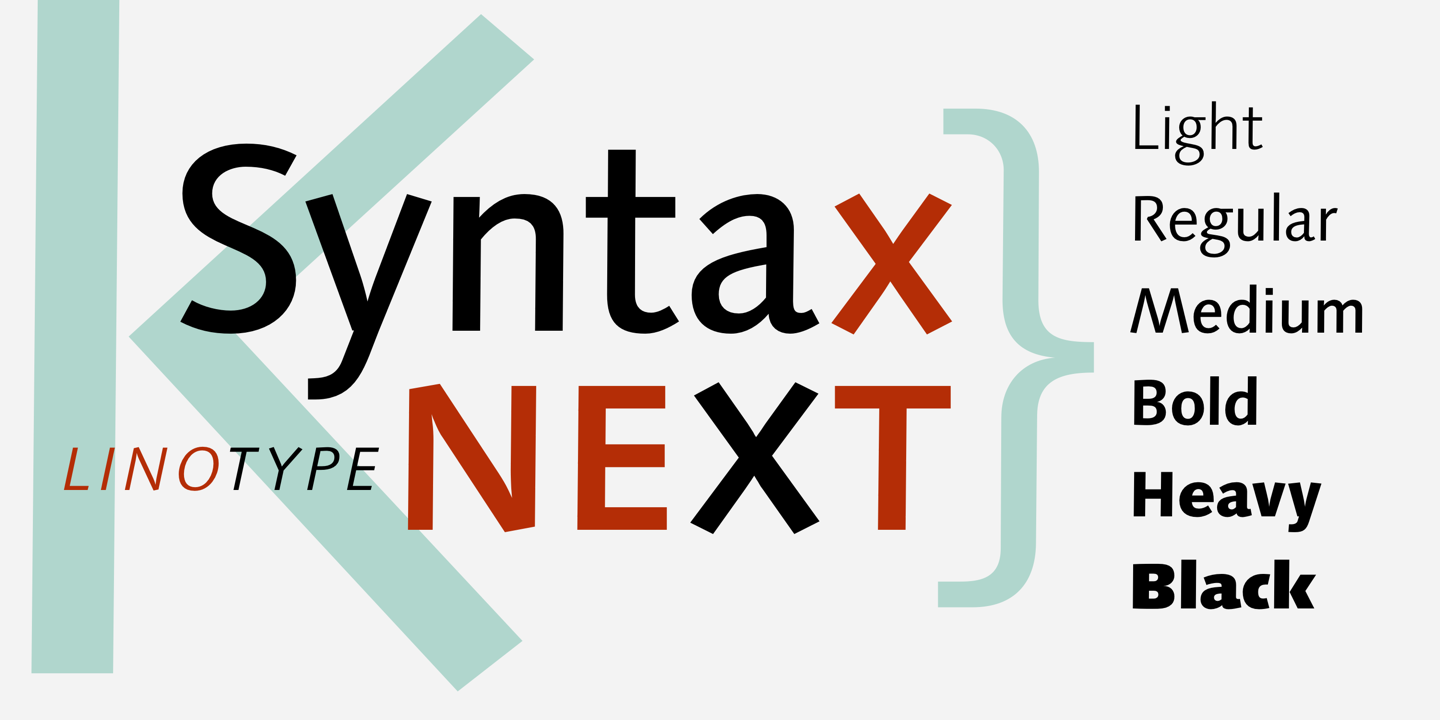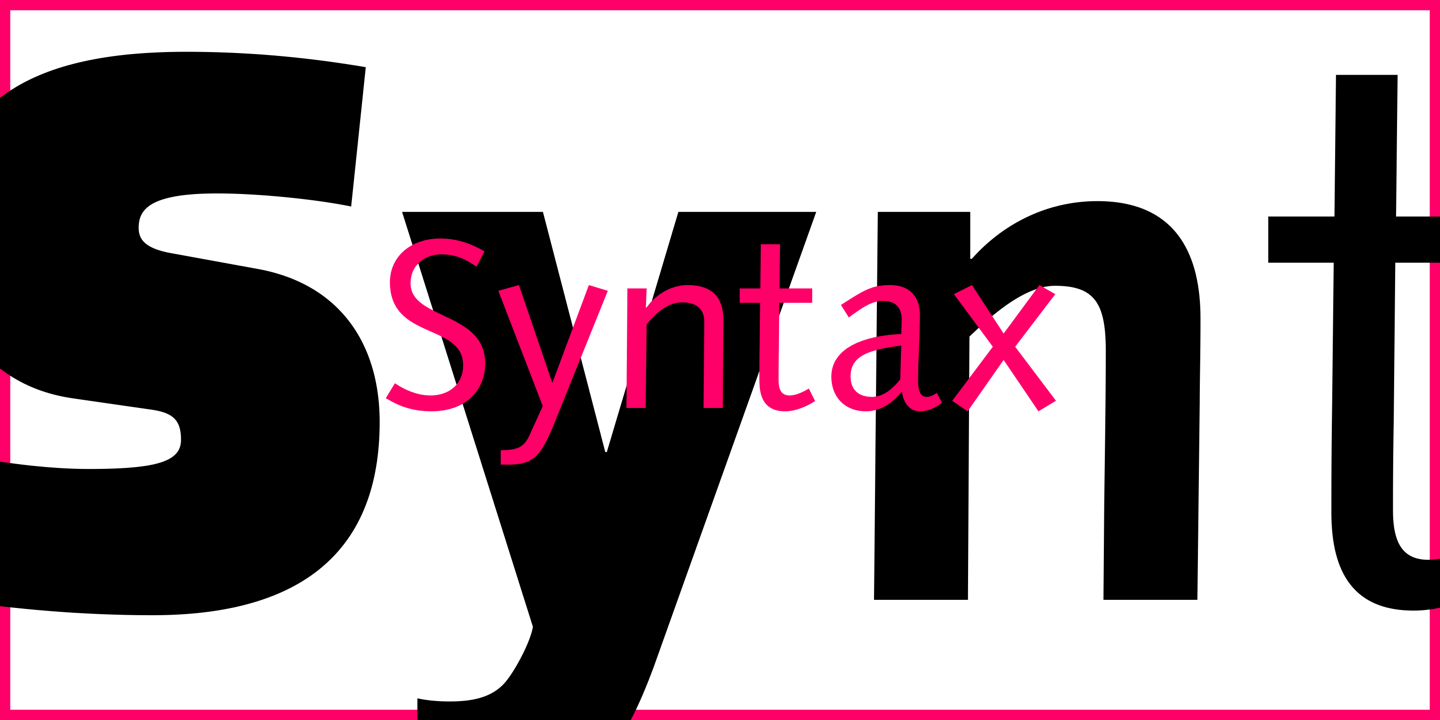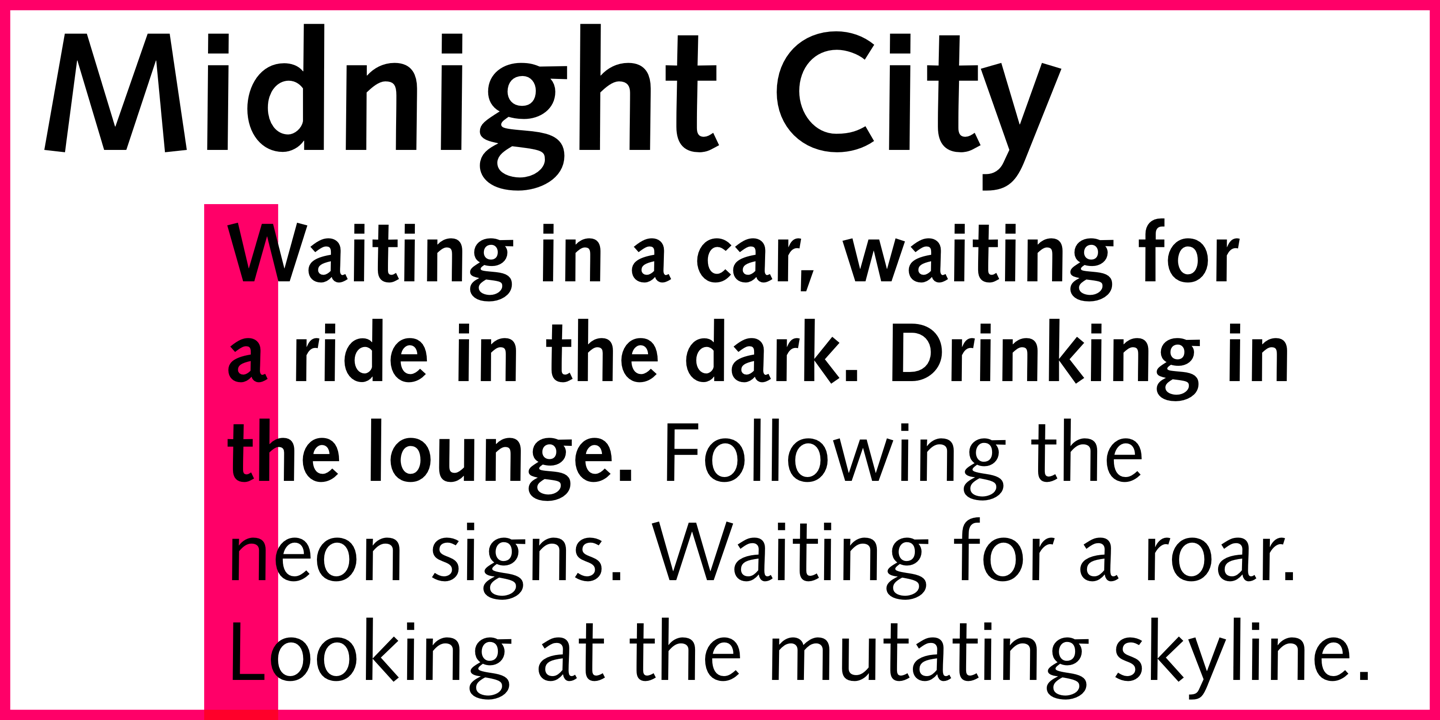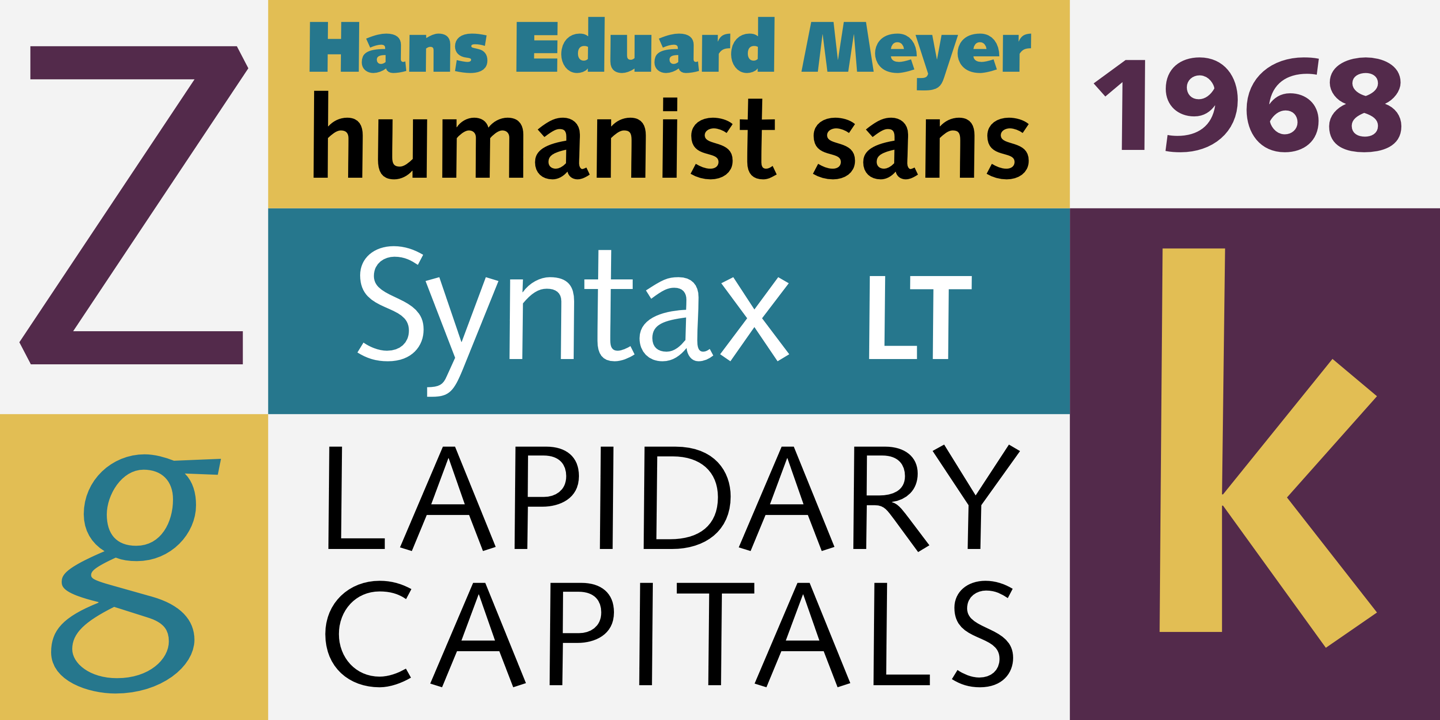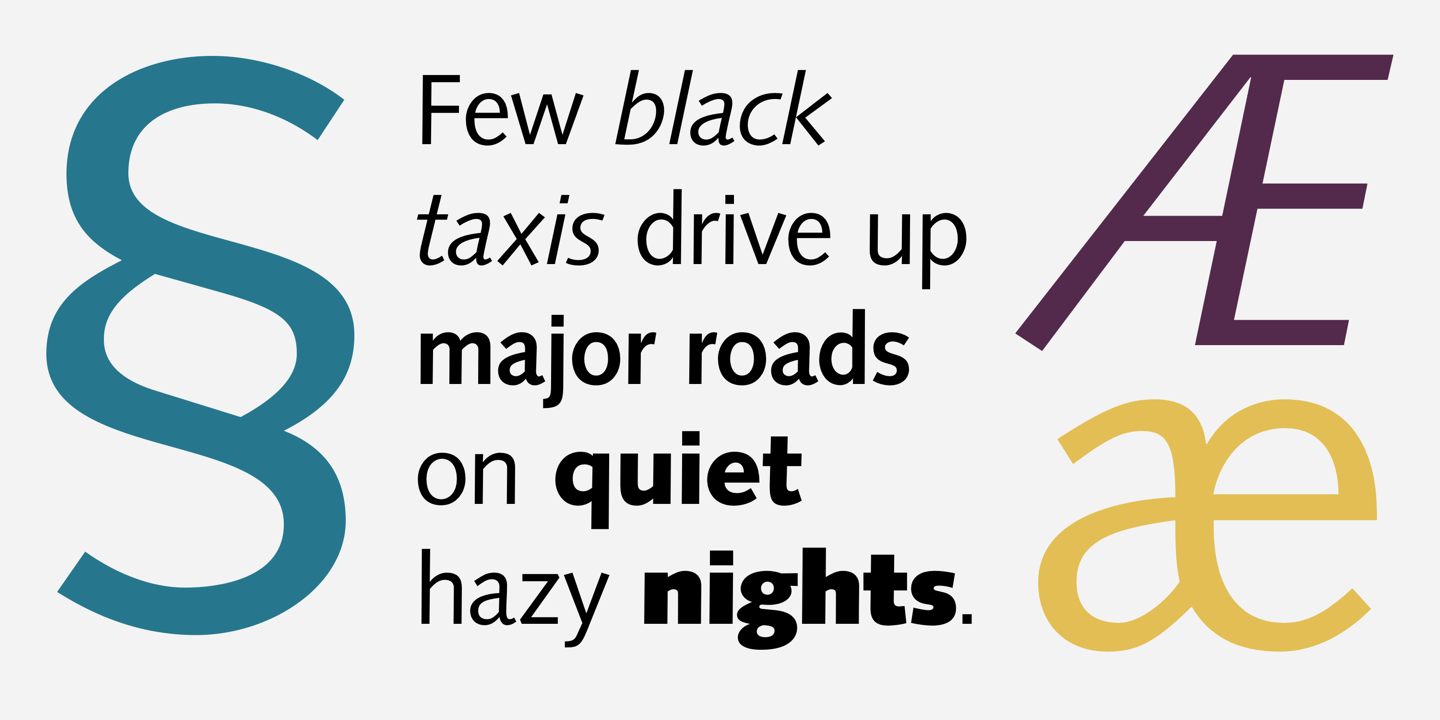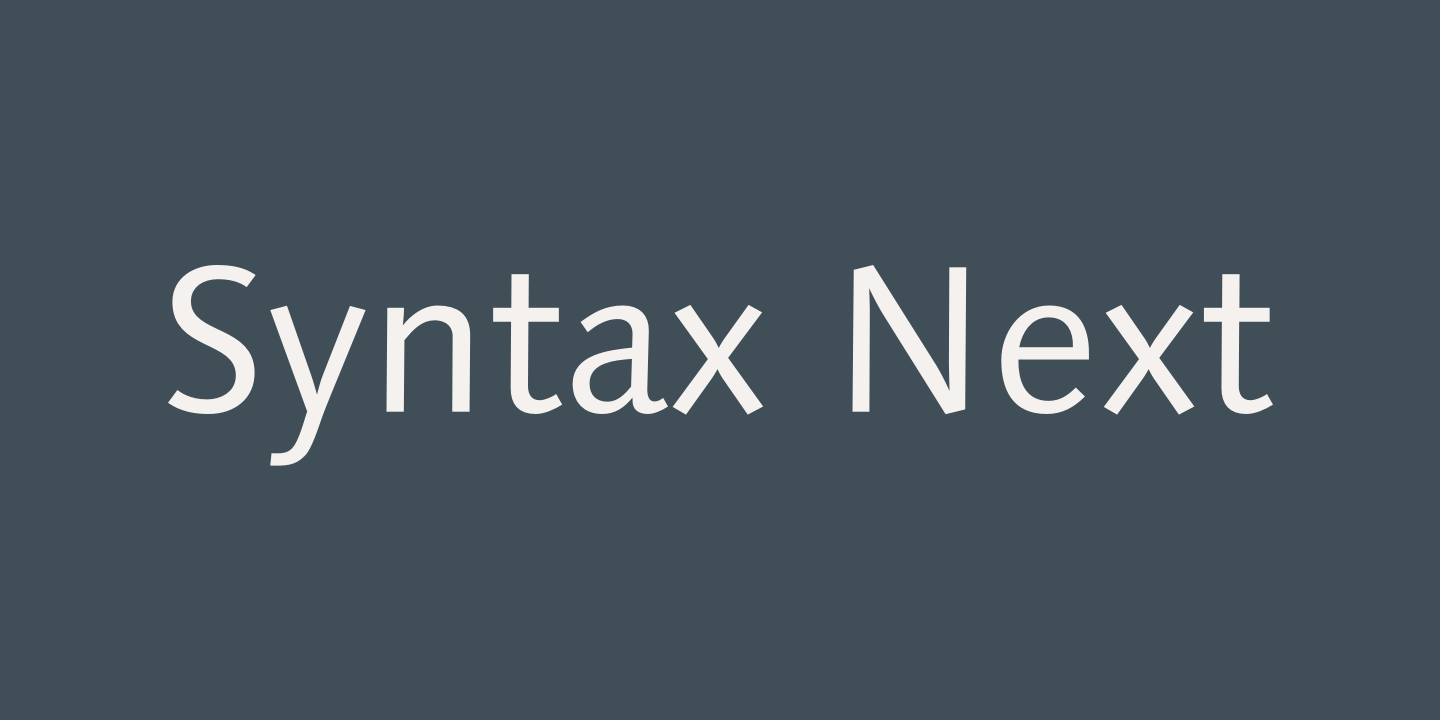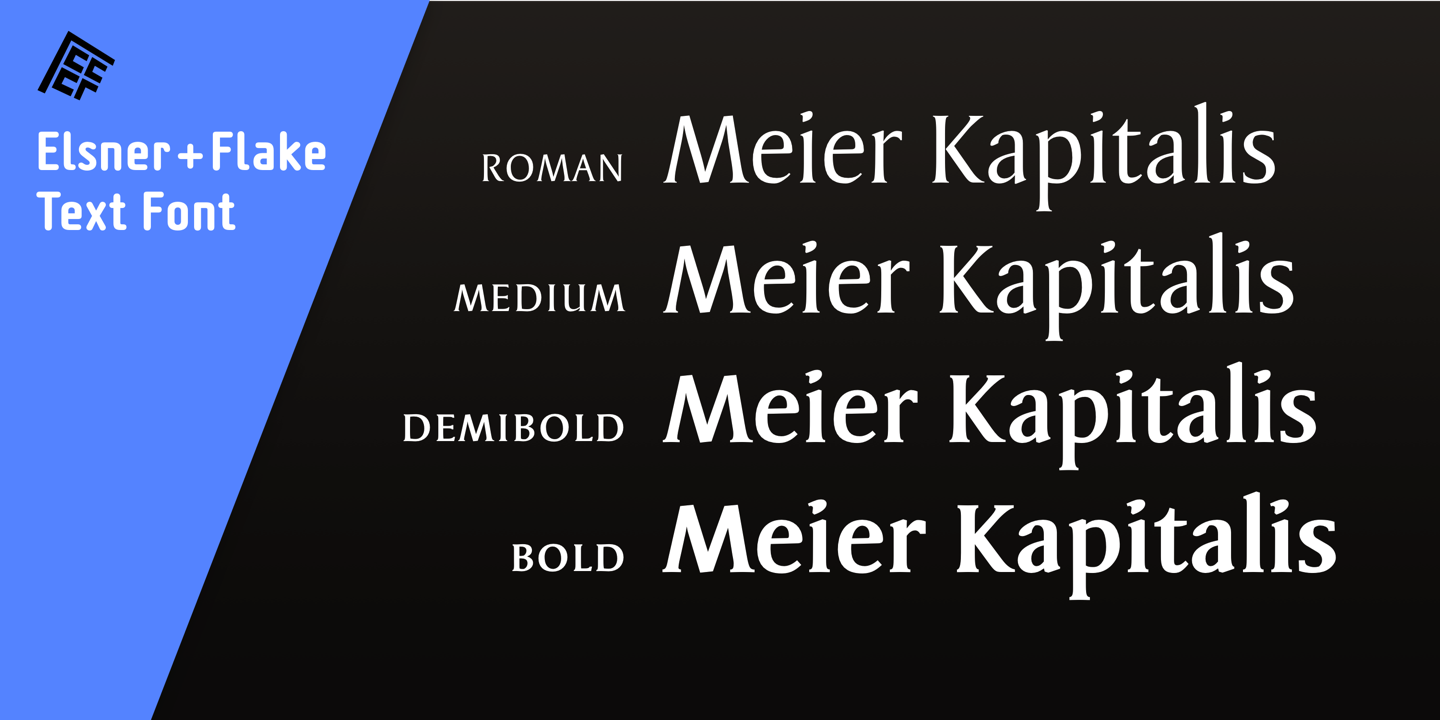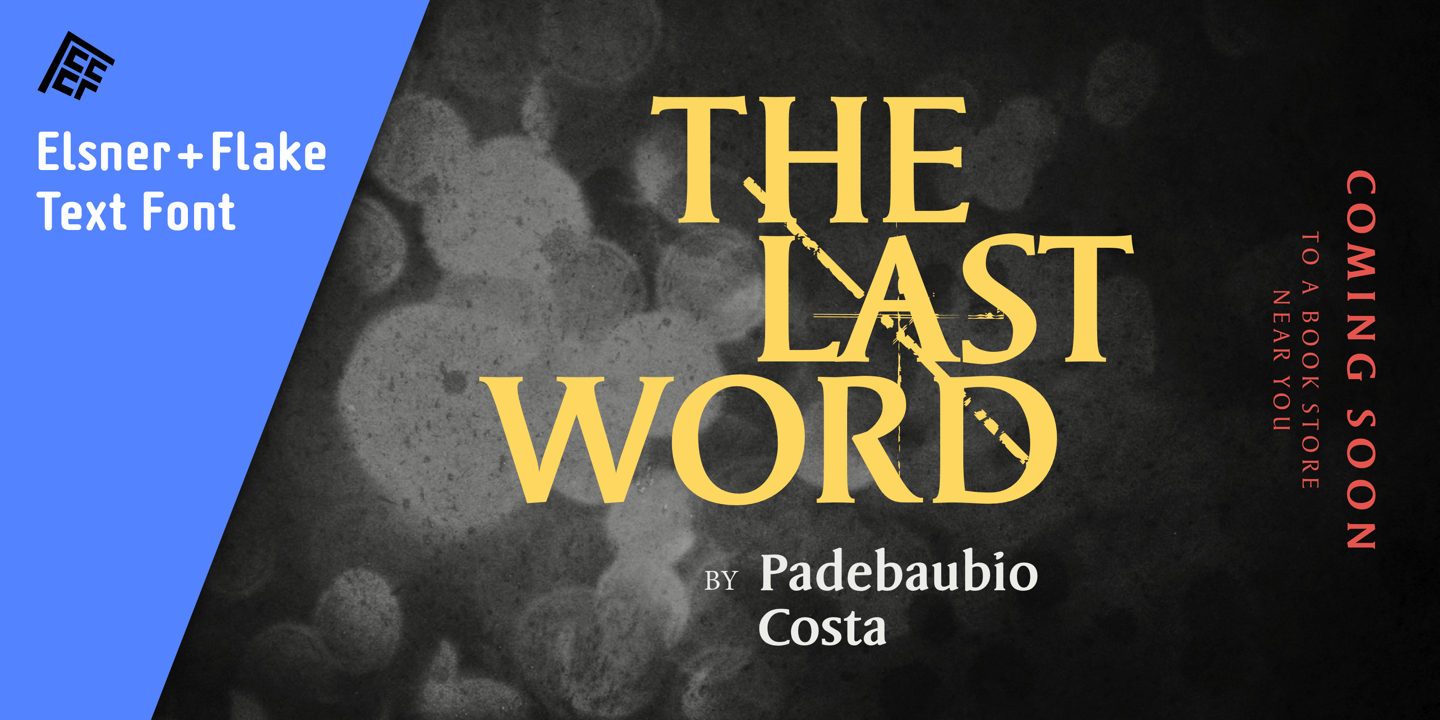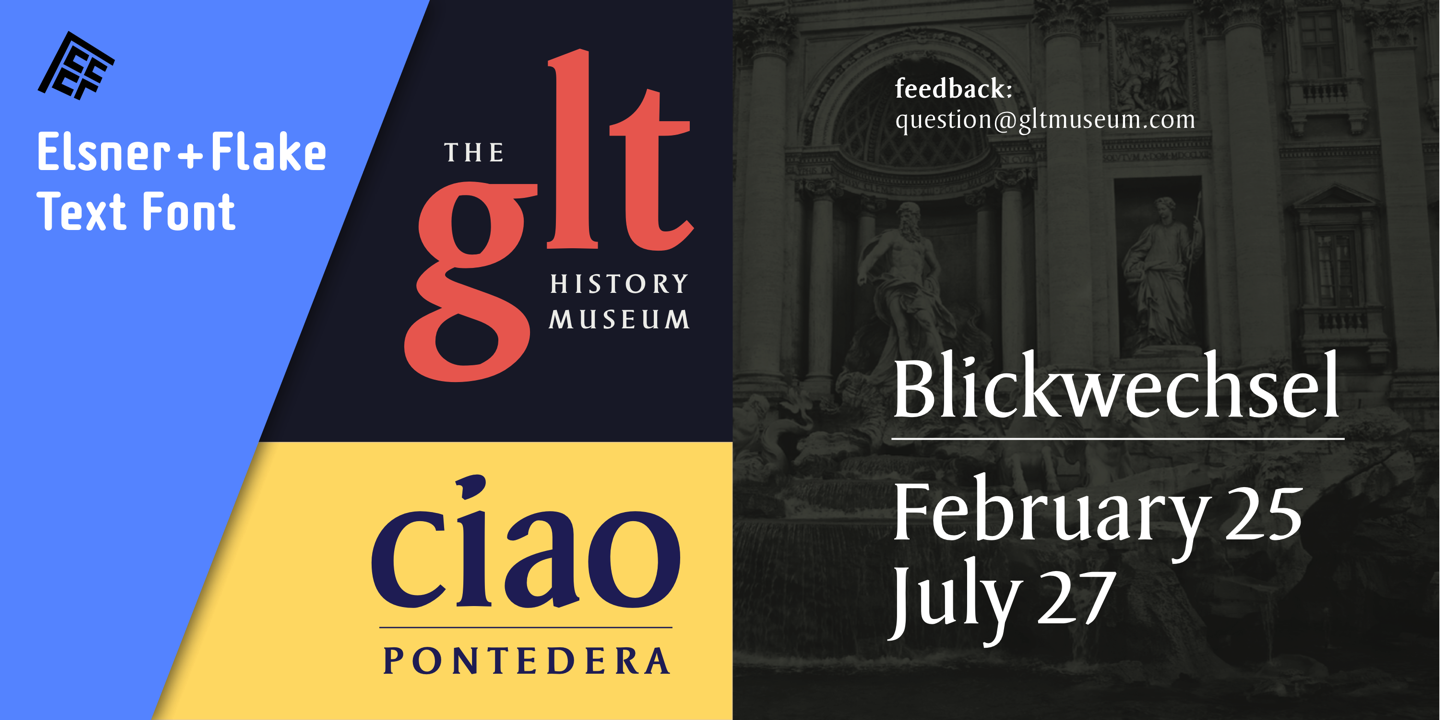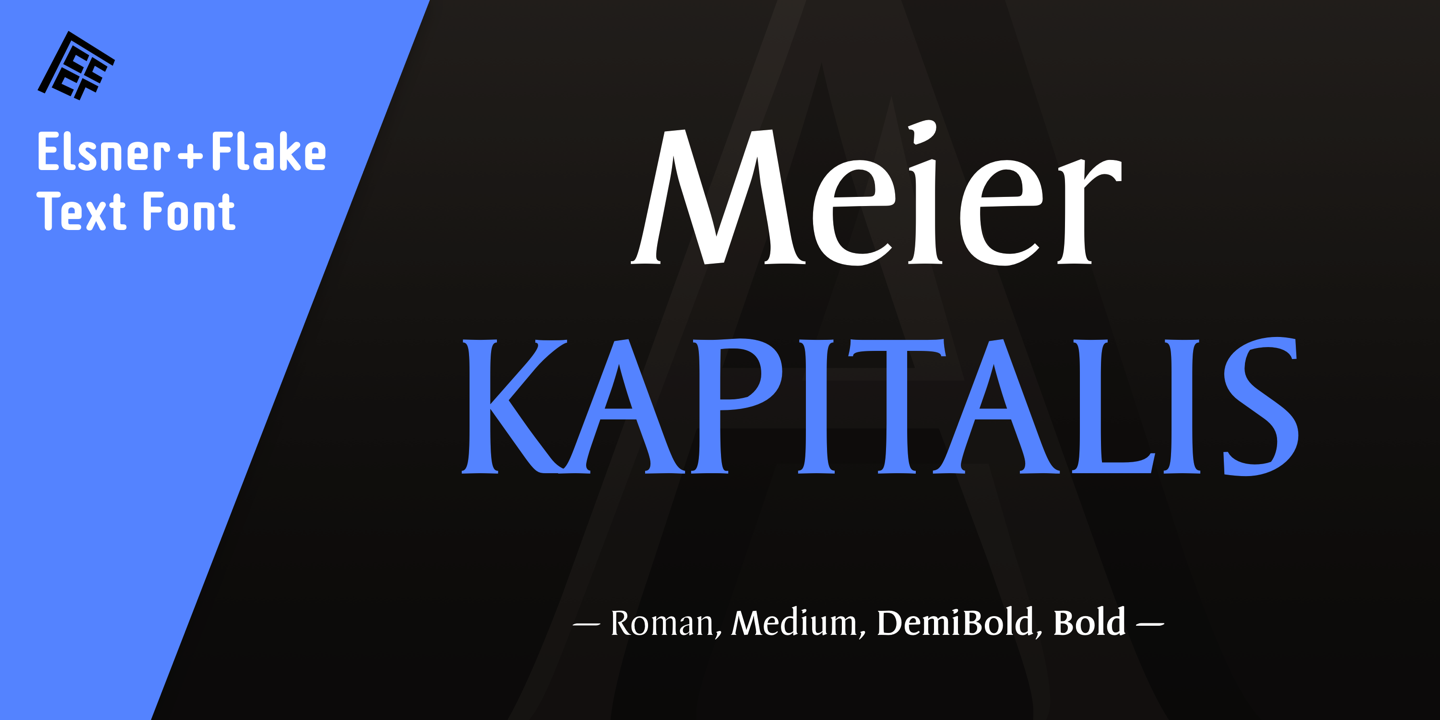
Hans Eduard Meier of SwitzerlandBorn: Horgen am Zürichsee, Switzerland, 1922 Swiss designer who worked with Stempel in the late 1960s, creating that most humanist of sanserifs, Syntax, a type whose influence is clear in Spiekermann’s Meta and its followers. Meier taught typeface design and graphic arts at Kunstgewerbeschule in Zürich for 36 years. Although he retired in 1986, Meier continues to design new typefaces and publish them through the Elsner+Flake Digital Library. Fonts by Hans Eduard MeierBarbedor EF, Barbedor, EF Elysa, Humanist 531, EF Oberon Serif, ITC Syndor, Syntax, Linotype Syntax Lapidar, Syntax Lapidar Serif, Linotype Syntax Letter, Linotype Syntax Serif Browse all fonts by Hans Eduard Meier ActivitiesRelated Links